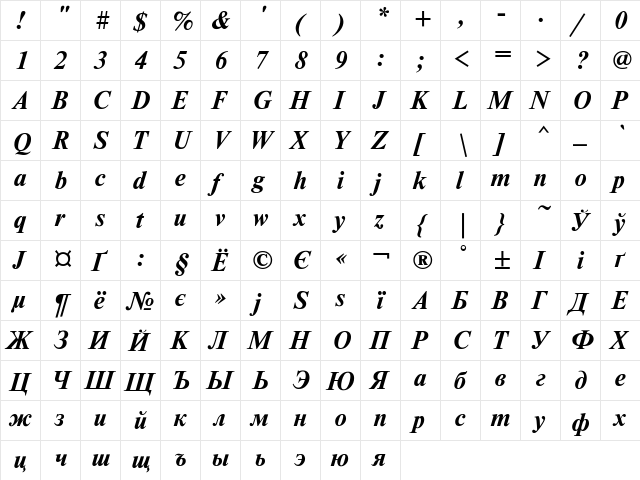
TimesET Bold Italic
Design Context for TimesET Typeface
TimesET offers clean, dependable letterforms without strong stylistic allegiance, making it a practical choice for designers who need flexibility. The slanted form adds forward momentum and visual energy. The heavy weight commands attention and anchors typographic hierarchies.